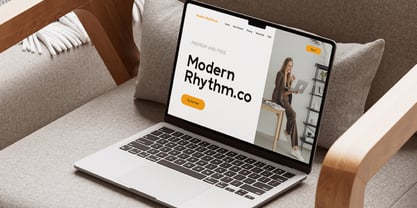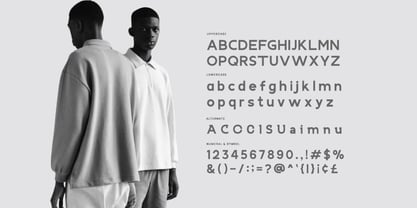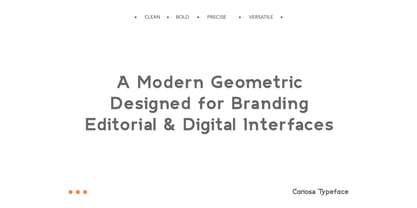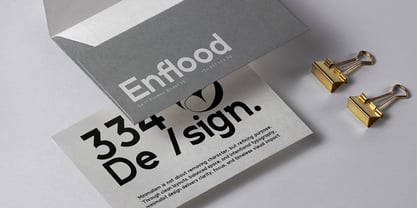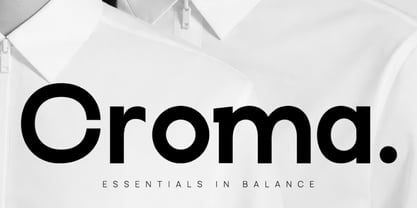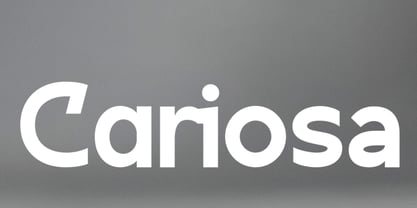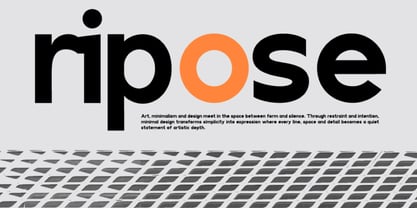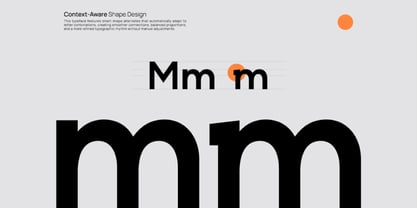
Cariosa
Cariosa is a modern geometric sans serif typeface built with clean structure, smooth curves, and balanced proportions. Designed with context-aware shape alternates and refined spacing, it creates a consistent rhythm across headlines, branding, and editorial layouts. The font includes uppercase, lowercase, numerals, symbols, multilingual support, and stylistic alternates for flexible typography control. Cariosa fits contemporary branding systems that require clarity, confidence, and modern aesthetics. The geometric construction keeps layouts sharp and professional while remaining friendly and highly readable. Works well for identity design, advertising, packaging, digital interfaces, and editorial headlines where precision and simplicity matter.